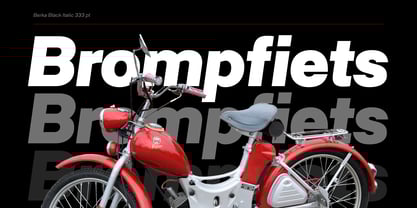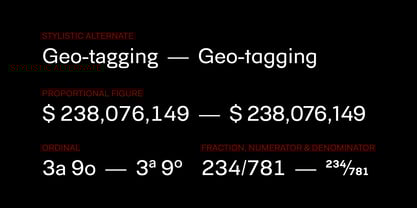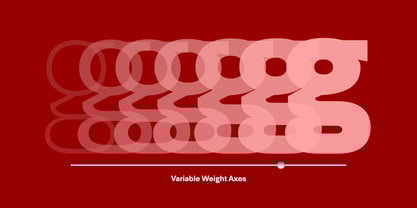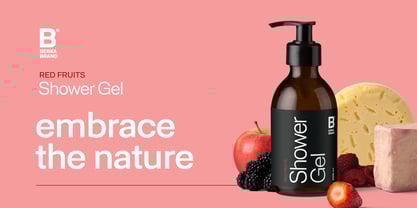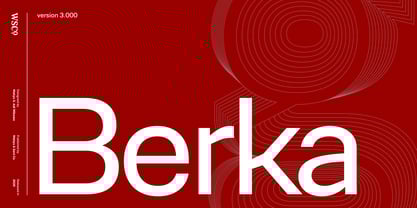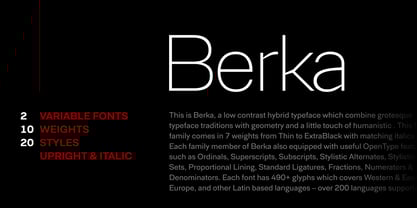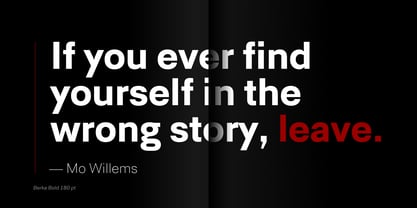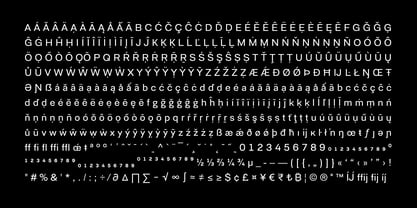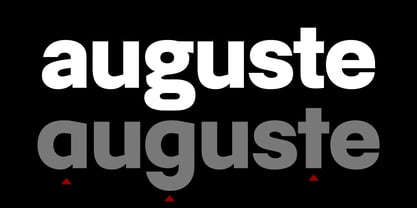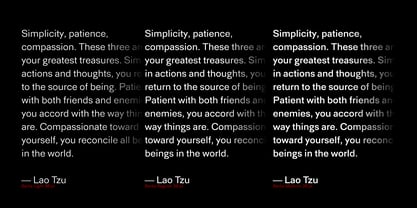
The Berka Font Family was designed by Wahyu Wibowo and published by Wahyu and Sani Co.. Berka contains 22 styles and family package options. More about this family
This is Berka, a low contrast hybrid typeface which combine grotesque typeface traditions with geometry and a little touch of humanistic . This font family comes in 7 weights from Thin to Black with matching italics.
Each family member of Berka also equipped with useful OpenType features such as Ordinals, Superscripts, Subscripts, Stylistic Alternates, Stylistic Sets, Proportional Lining, Standard Ligatures, Fractions, Numerators & Denominators. Each font has 490+ glyphs which covers Western & Eastern Europe, and other Latin based languages – over 200 languages supported!
Berka will be suitable for many creative projects. With its versatility, Berka typeface will be suitable for logos, posters, presentations, headlines, lettering, branding, quotes, titles, magazines, headings, web banners, mobile applications, art quotes, advertising, packaging design, book title, and more!